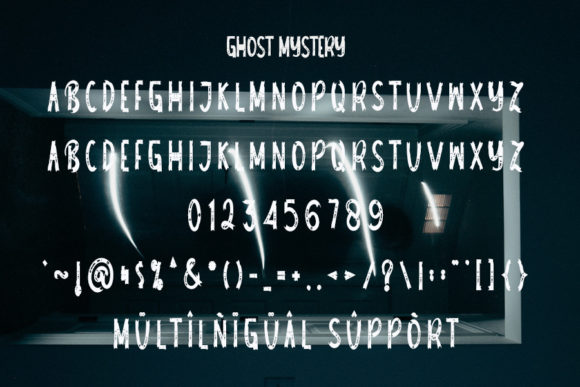
Introduction to Ghost Mystery Font
Ghost Mystery is a bold and fun decorative font, perfectly suitable for Halloween.
| ๐ค Author | Inermedia STUDIO |
It embodies playfulness and mystery, and itโs great for messages that need to stand above the background .
Key Features of Ghost Mystery Font
Why Choose Ghost Mystery Font?
Ghost Mystery Font offers exceptional quality and versatility, making it a valuable addition to your design toolkit. Whether you’re creating for personal projects or commercial use, Ghost Mystery Font delivers professional results.